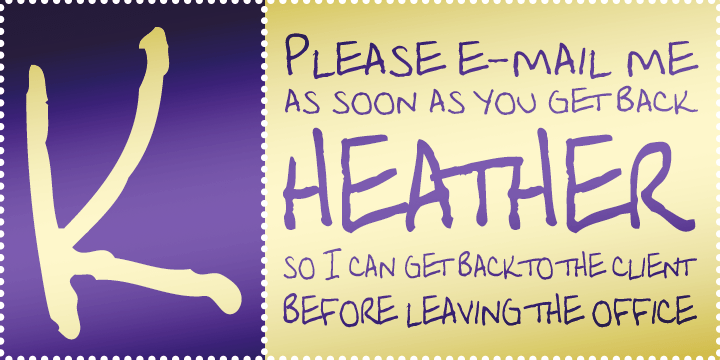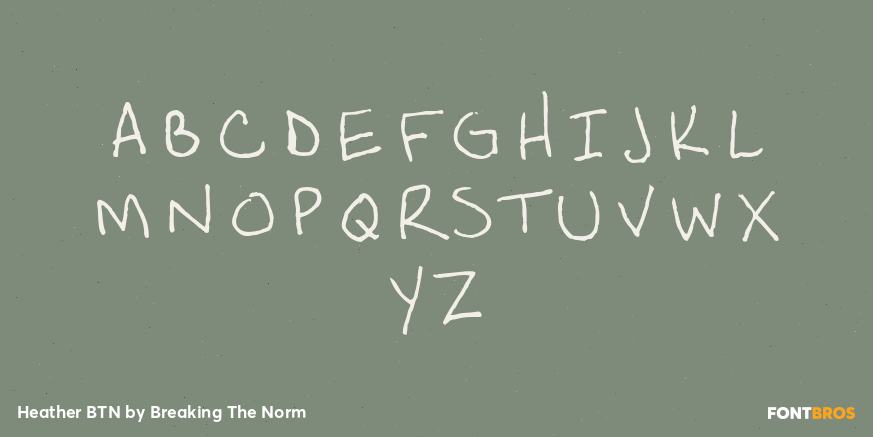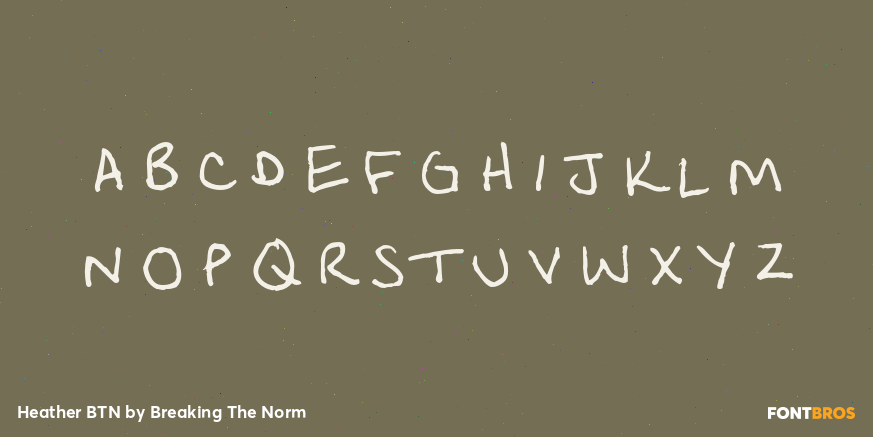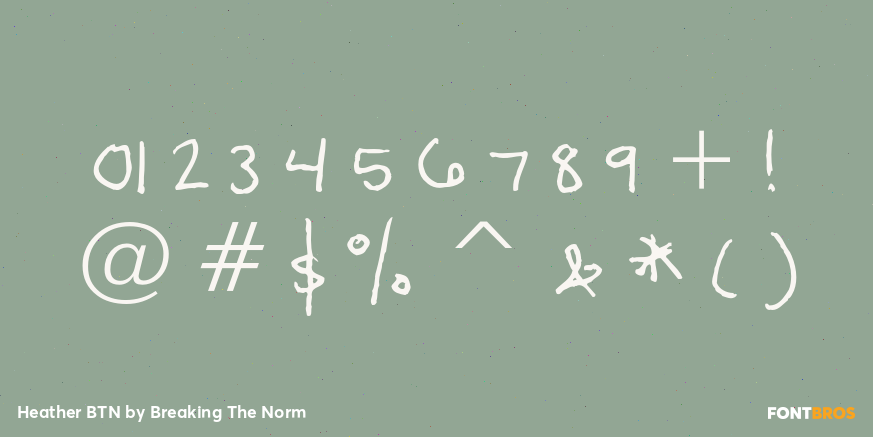
Heather BTN
Font Family by Breaking The Norm
Heather BTN is a clean informal handwriting font with a natural, straightforward personality. Its simple handwritten style feels neat, friendly, and highly approachable, making it a good choice for personal letters, notes, office correspondence, invitations, greeting cards, classroom materials, and casual branding. Heather BTN brings a genuine human touch without becoming overly decorative, giving designs a warm and readable handwritten voice suited to everyday use.